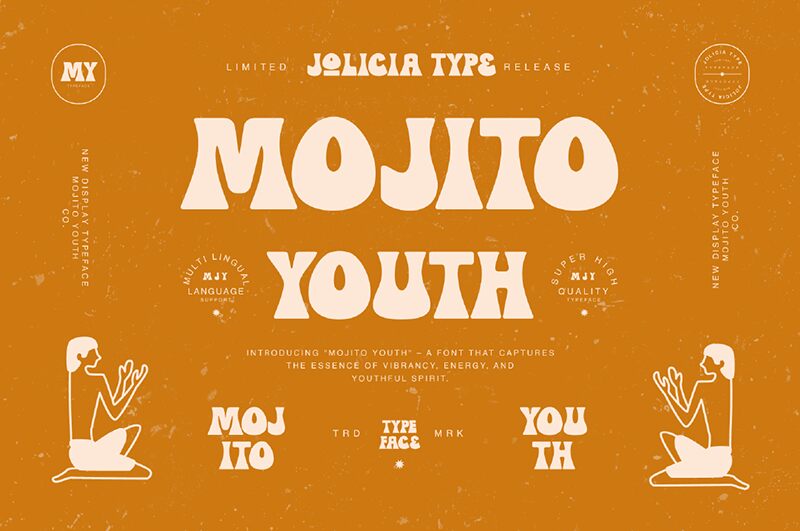
Mojito Youth font
Mojito Youth
Mojito Youth is a charming display font that beautifully marries the timeless allure of a vintage aesthetic with a vibrant retro spirit. This font has been meticulously crafted to evoke a sense of nostalgia, all while radiating a youthful energy that complements contemporary design trends.
With its captivating design, Mojito Youth is an excellent choice for various applications, including personal projects and creative works that celebrate individuality and fun. Enjoy the unique character this free font brings to your designs today!